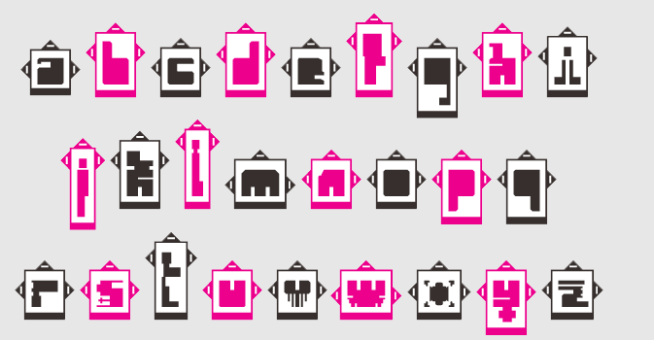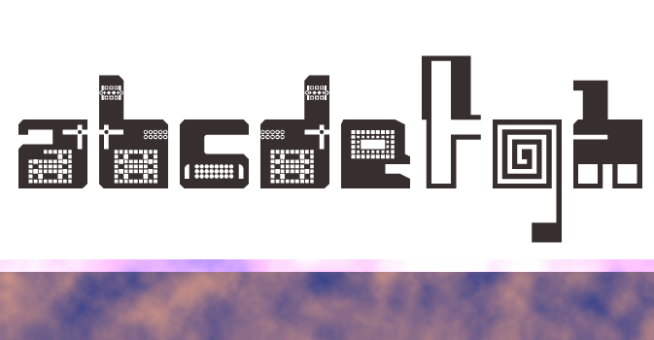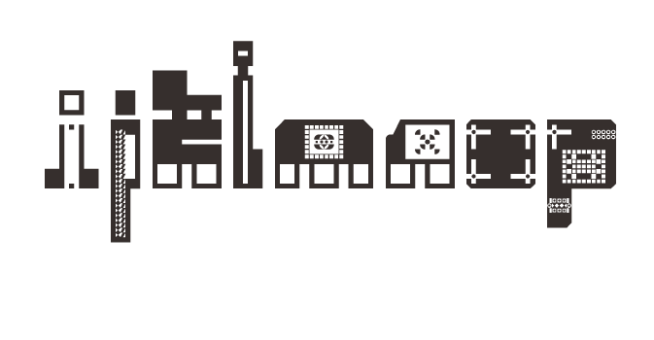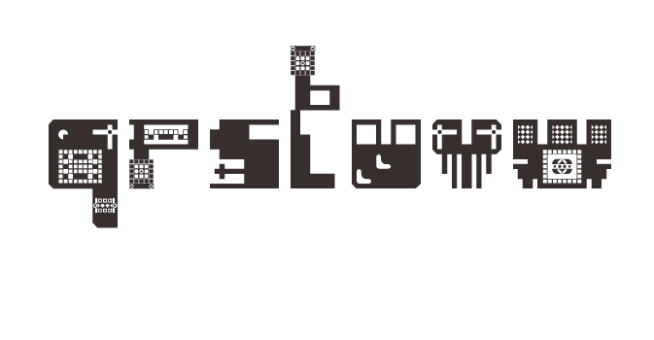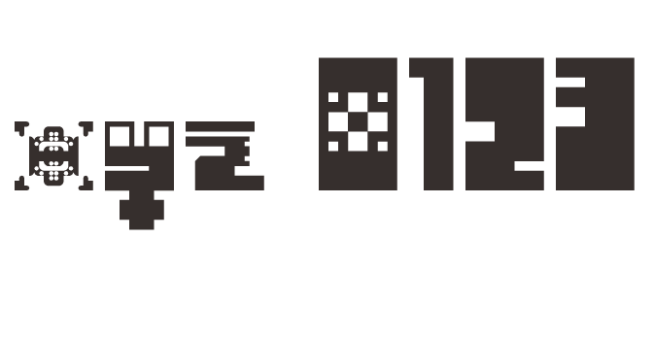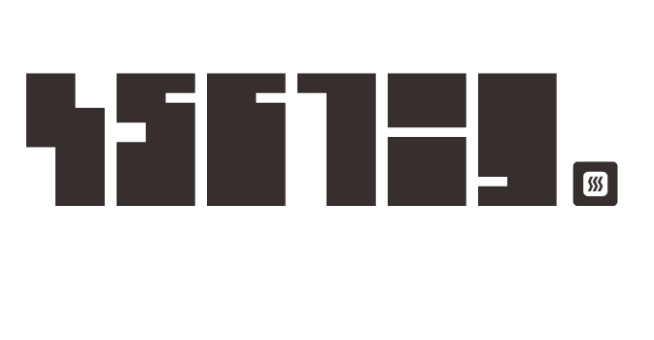
trAUMa 93 / Mardi Gras
"Mardi Gras", like all the "trAUMa" series, works at the frontier between Art & Type Design, Figuration & Abstraction, each font is a comprehensive world in which every glyph is a "living" entity. But put together they can produce your messages in the most accurate way.